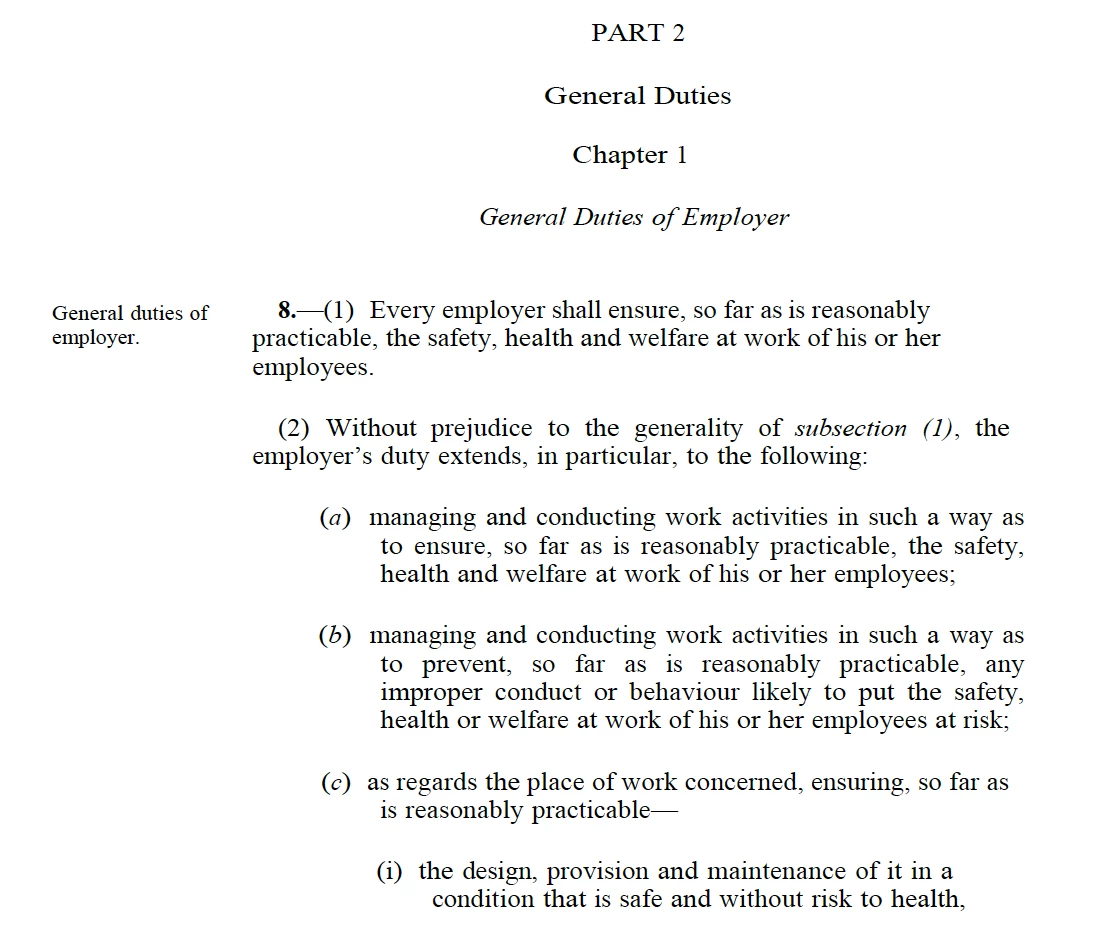
Fonts for guidelines to legislation
I am working on a new document and considering some options for the fonts. The document is a guideline to legislation, so I want the look and feel to contrast the actual legislative text.
The guidelines are there to support reader, help to guide them through the legal requirements in a clear and concise manner.
I want to make sure that the document is approachable and easy to read. It is unlikely that a reader will read from cover to cover. They are more likely to dip in and read certain sections.
In previous guidelines we have used Myriad Pro or Verdana for body text and Hypatia Sans for heads. However on this occasion I am considering a serif font for the body, like Warnock or Garamond. While these fonts help make the document more readable, I am concerned that this may make the guideline appear more serious and less approachable.
So, sans serif OR serif for this type of document.
It may be too close in this case, but you may notice that it is somehow less tiring/boring. In this context it matters little whether you have New.
Still pondering.
Edit:
For contrast and readability, you may consider some of the more readable (but distinctly different) sans fonts like Verdana, Helvetica, Myriad, Futura, or a quite different serif font like Century Schoolbook (as you probably know, Arial is just a euphemism for fake Helvetica).
To decide, you may put some text (the full keyboard of letters or a relevant piece of text) into a word processing application in Times, then repeatedly copy it and change the font until you like what you see in comparison. With each new piece of text selected, you should be able to run through the fonts and see it happen, then select font, create a new copy, and go on. When you reach the bottom, you can compare, delete, and move about, until you are there.
Which font is used in the legislative text?
Depending on that, there may be counter reasons, but I still feel that (New) Baskerville gives the easiest (and most pleasant) read.
The legal text is in Times New Roman:
I am trying to create a document with a more approachable style. Because the legislation is so formal, do you think that New Baskerville is a sufficiant contrast?
In the UK, some of the guidelines use Arial.
I have the Baskerville font (not sure if 'New'), so will give it a run around the block and see how it looks.
It may be too close in this case, but you may notice that it is somehow less tiring/boring. In this context it matters little whether you have New.
Still pondering.
Edit:
For contrast and readability, you may consider some of the more readable (but distinctly different) sans fonts like Verdana, Helvetica, Myriad, Futura, or a quite different serif font like Century Schoolbook (as you probably know, Arial is just a euphemism for fake Helvetica).
To decide, you may put some text (the full keyboard of letters or a relevant piece of text) into a word processing application in Times, then repeatedly copy it and change the font until you like what you see in comparison. With each new piece of text selected, you should be able to run through the fonts and see it happen, then select font, create a new copy, and go on. When you reach the bottom, you can compare, delete, and move about, until you are there.